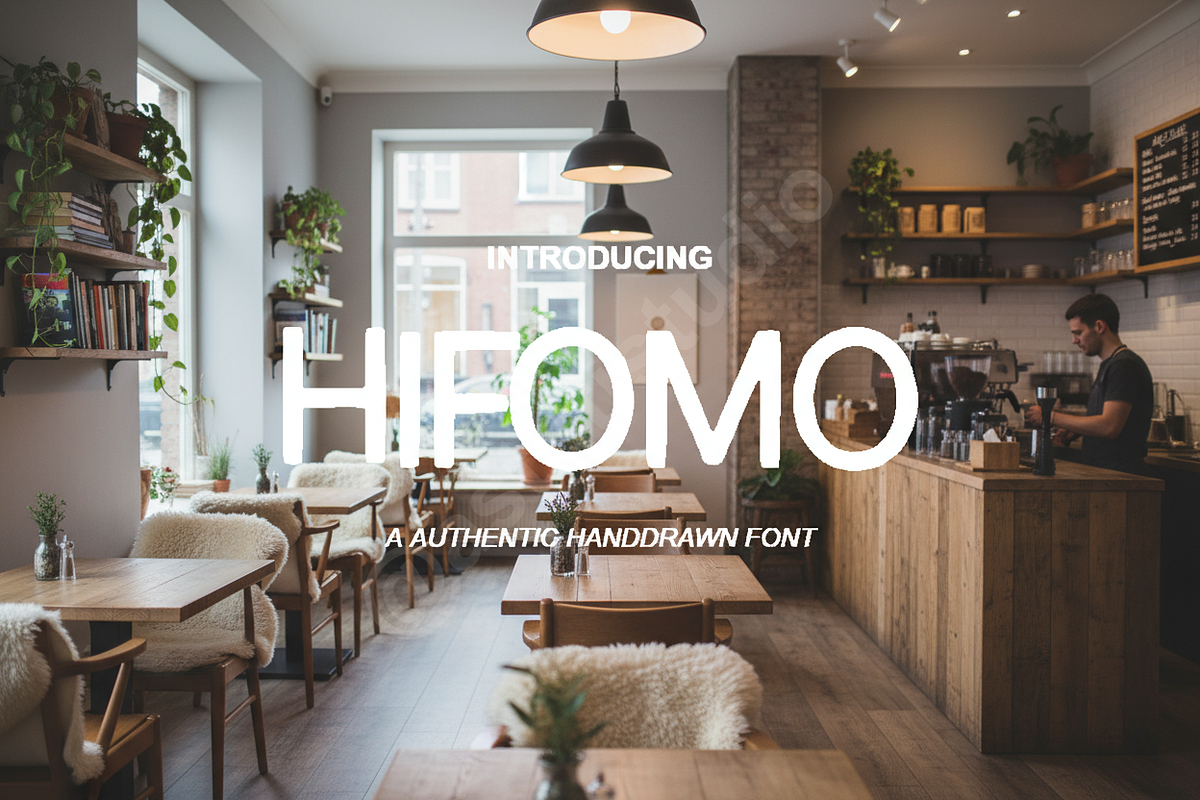
Hifomo | Elegant Luxury Serif Typefa
INTRODUCTION Hifomo is a high-end serif typeface meticulously crafted for projects that demand a sense of luxury and timeless elegance. With its sharp terminals and balanced proportions, it serves as the perfect cornerstone for high-fashion branding, editorial layouts, and premium social media content. Whether you are designing a sleek logo or a minimalist magazine spread, Hifomo delivers a polished, studio-quality aesthetic that commands attention.
- Refined high-contrast strokes for a premium feel
- Sophisticated letterforms tailored for luxury appeal
- Comprehensive multilingual character support
- Optimized kerning for professional typography
- Clean, legible design suitable for both print and digital media
- Full Uppercase and Lowercase character sets
- Comprehensive numbers, punctuation, and symbols
- Access to stylistic alternates for unique design customizations